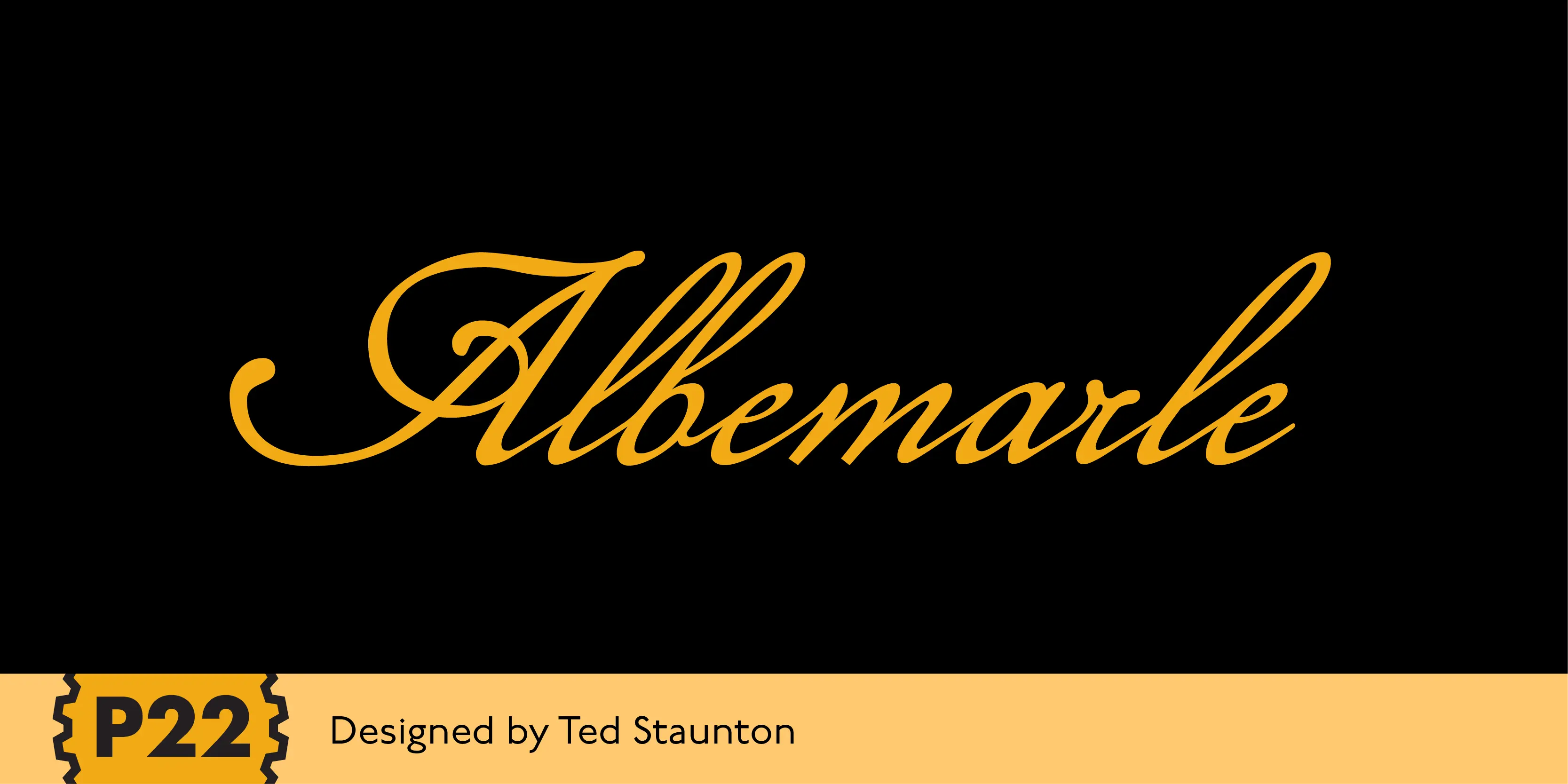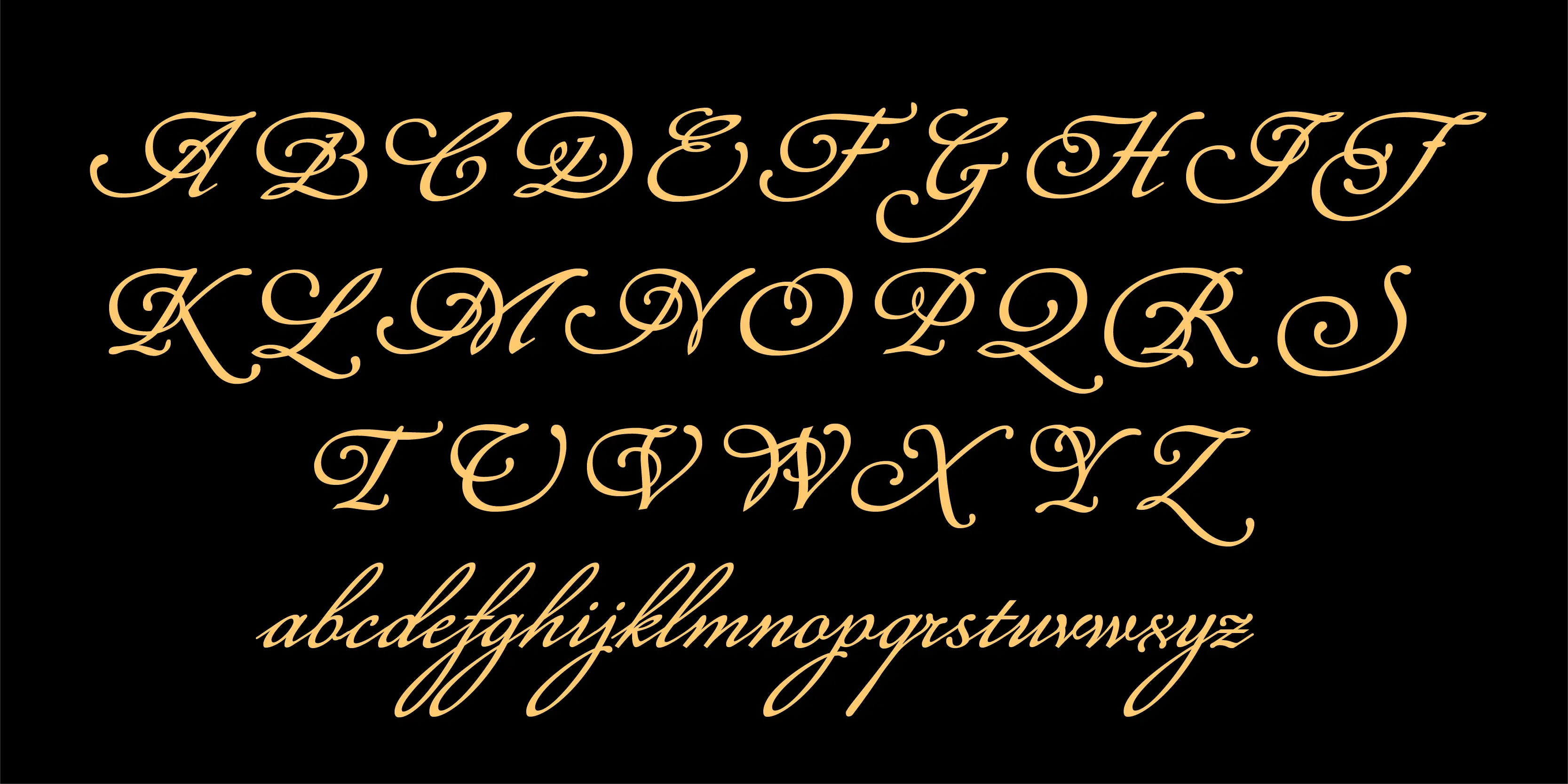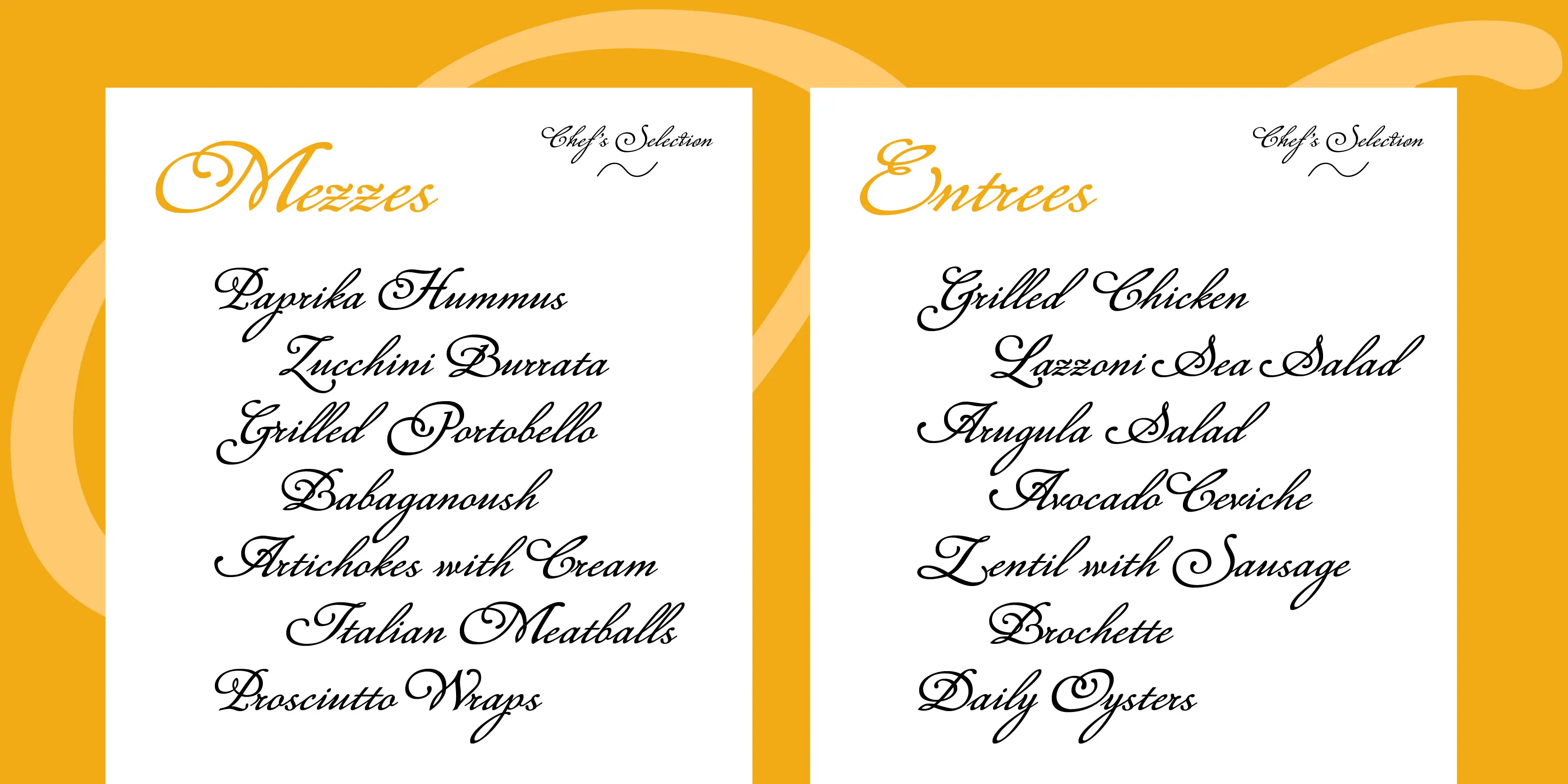
Albemarle Font
P22 Albemarle is a smooth reworking of the popular rough textured Roanoke font. The texture change gives this style a much more elegant effect, yet retains its skilled capturing of historical handwriting.